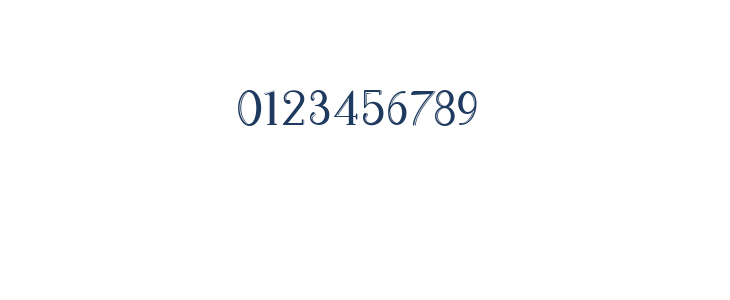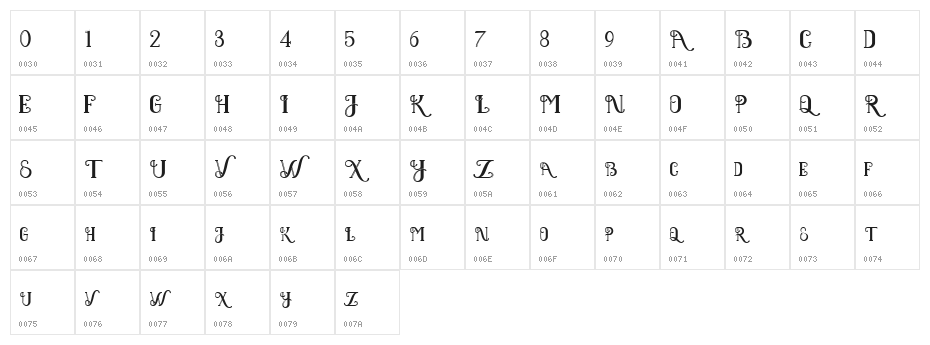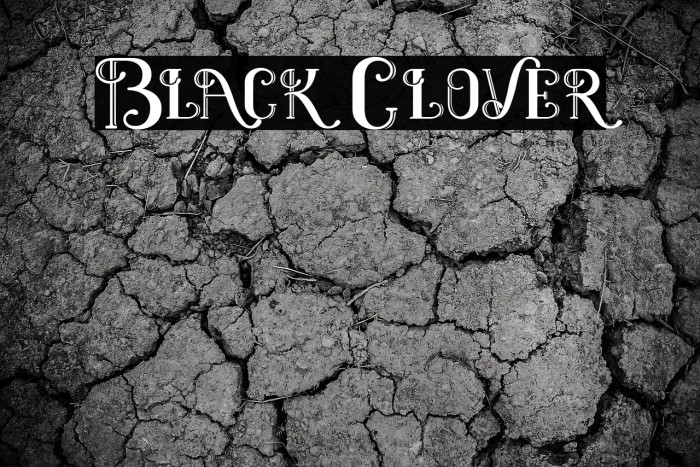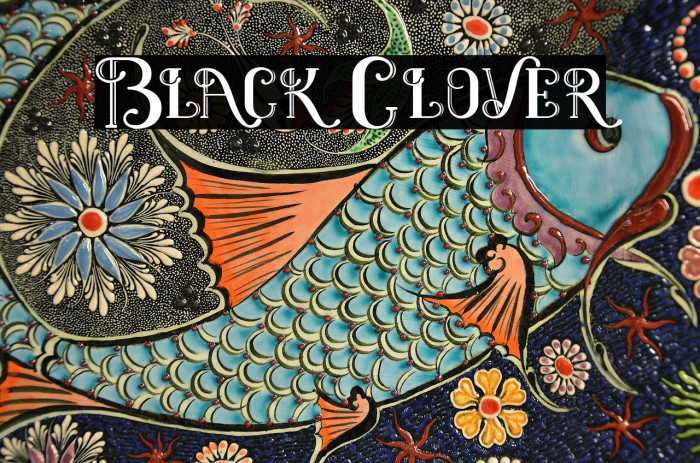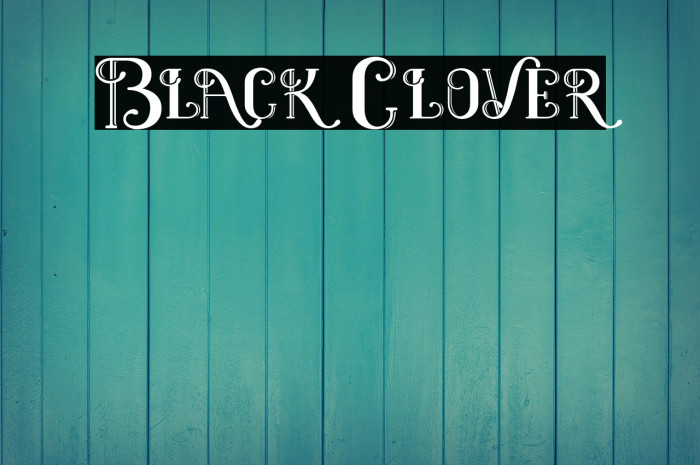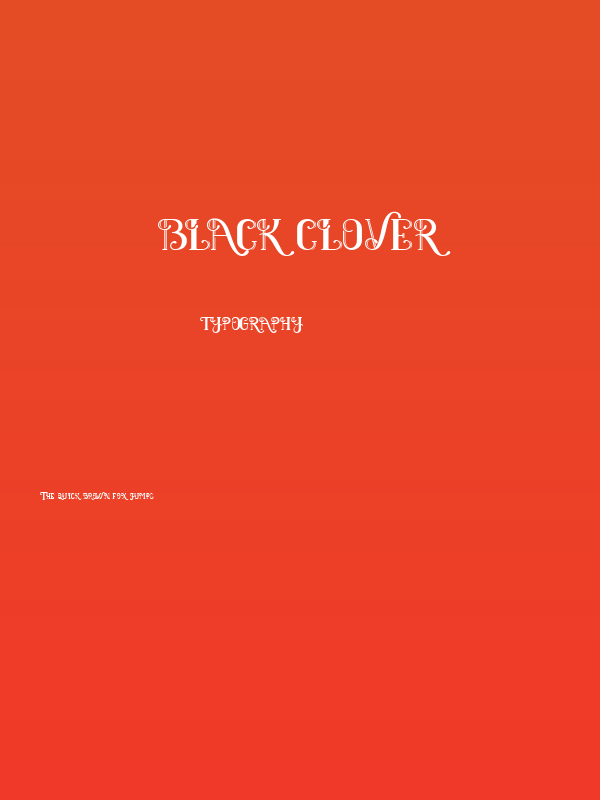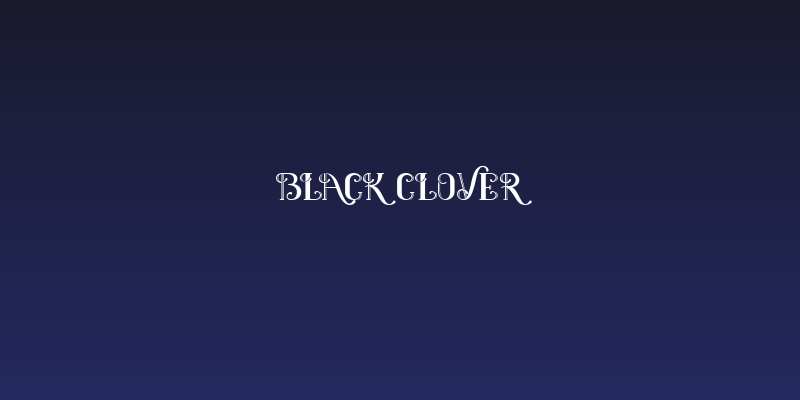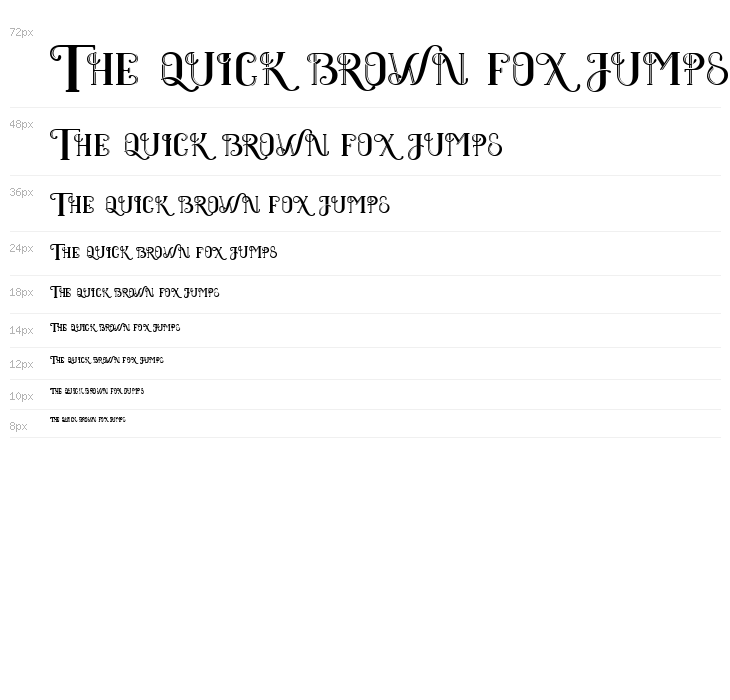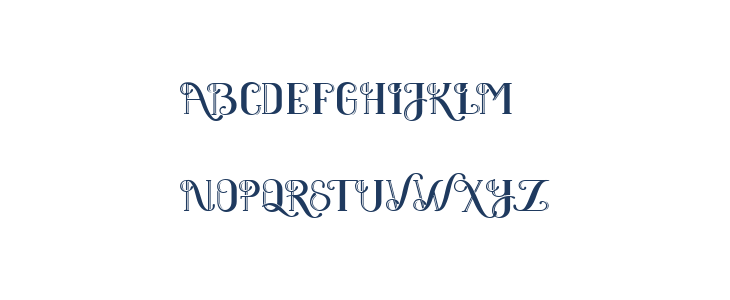
Black Clover Font
Black Clover Description
This font features an ornate and decorative style, characterized by its intricate swirls and flourishes that extend from the main strokes of each letter. The uppercase letters are particularly elaborate, with embellishments that give them a regal and sophisticated appearance. The lowercase letters maintain a similar decorative theme, though they are slightly more subdued to ensure readability. The numerals are consistent with the overall style, incorporating subtle curves and details. This font is ideal for projects that require a touch of elegance and flair, such as invitations, branding, or headlines. Its unique design elements make it stand out, while still maintaining a level of clarity and legibility.
| Proposed Projects | Ideal for wedding invitations, luxury branding, and decorative headlines. |